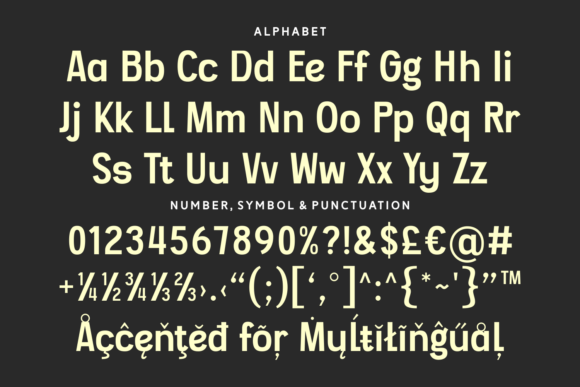
Introduction to Pleasing People Font
Remember that moment when you’re working on a creative project and you just can’t seem to find the perfect font to capture your audience’s attention? The one that screams ‘read me!’ without being too loud or overwhelming? That’s where the Pleasing People Font comes in – a game-changer for designers who want to make a confident statement without sacrificing clarity.
As a design resource, Pleasing People Font is a bold modern sans serif font that’s designed to command attention while remaining effortlessly clean and approachable. With its tall, structured letterforms and subtle curvature, this high-quality font is perfect for impactful headlines, branding, posters, and editorial layouts. Whether you’re working on a free download or a paid project, Pleasing People Font is sure to elevate your design to the next level.
Pleasing People Font
- Includes a range of stylish and elegant characters, perfect for adding a touch of sophistication to your creative project.
- Designed to be highly legible, even at small font sizes, making it an excellent choice for body text and headings in creative projects.
Honest Review: Pleasing People Font
- High-quality design**: The font is beautifully crafted, with a clear and modern aesthetic that’s perfect for a wide range of creative projects.
While the Pleasing People Font is a great addition to my design library, there are a few limitations to be aware of. For example, the font may not be suitable for very large or complex designs, and it can be a bit tricky to customize.
Overall, I’m thoroughly impressed with the Pleasing People Font. It’s a high-quality design resource that’s perfect for a wide range of creative projects. If you’re looking for a free download that’s both versatile and stylish, this font is definitely worth checking out.
Pleasing People Font
Tips for Getting the Most Out of Pleasing People Font
To get the most out of the Pleasing People Font, use it with a transparent background to create a seamless design. You can also pair the font with other high-quality design resources, such as graphics and images, to create a visually appealing design.
The Pleasing People Font is suitable for various creative projects, including:
- Blog posts and articles